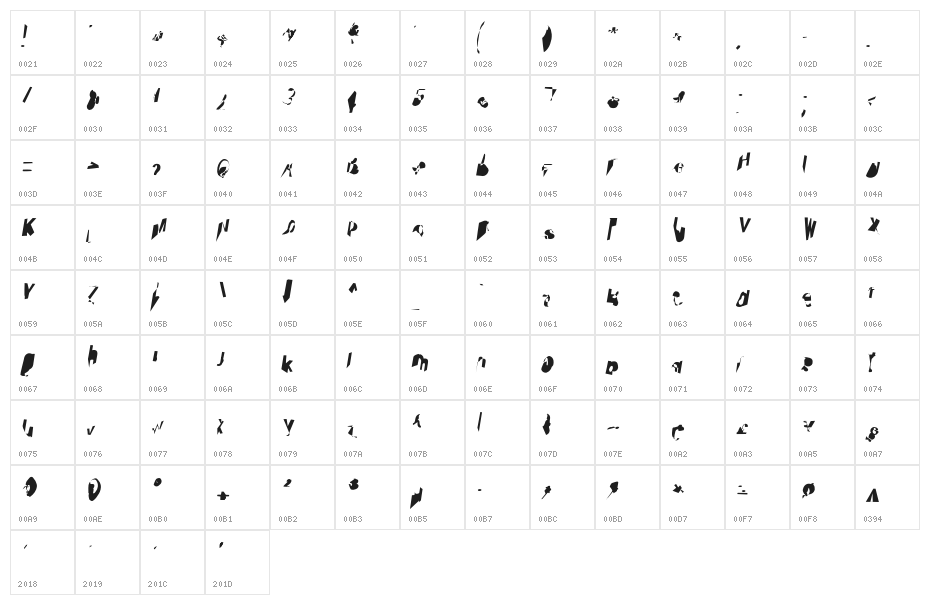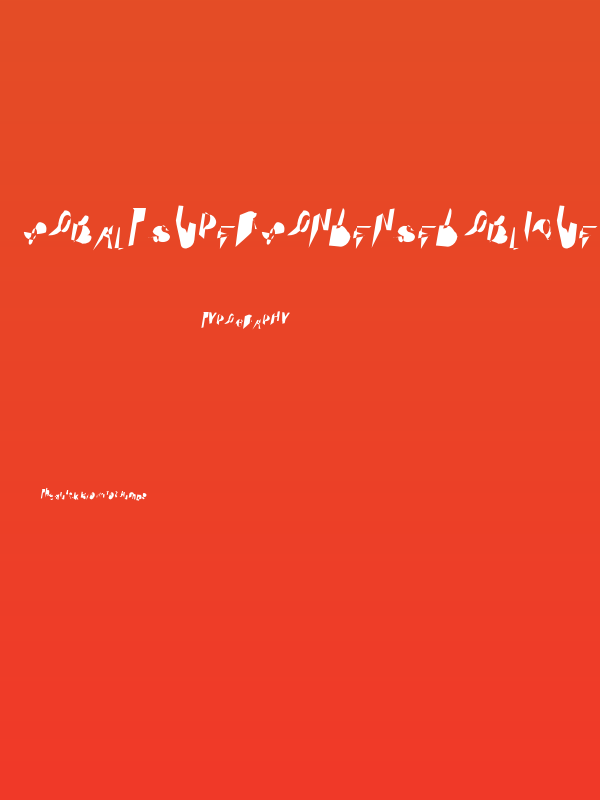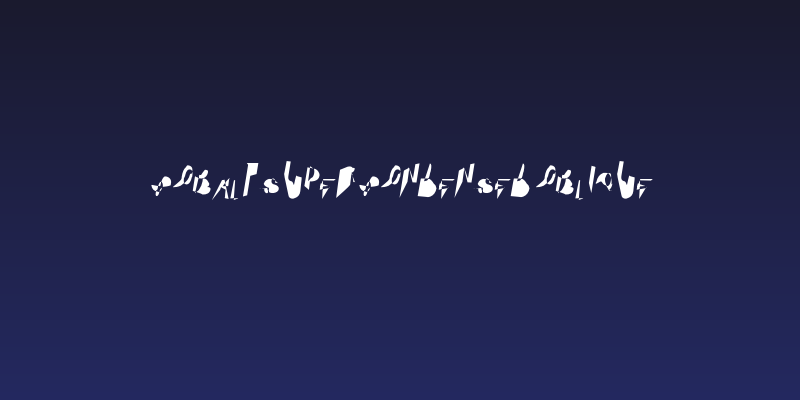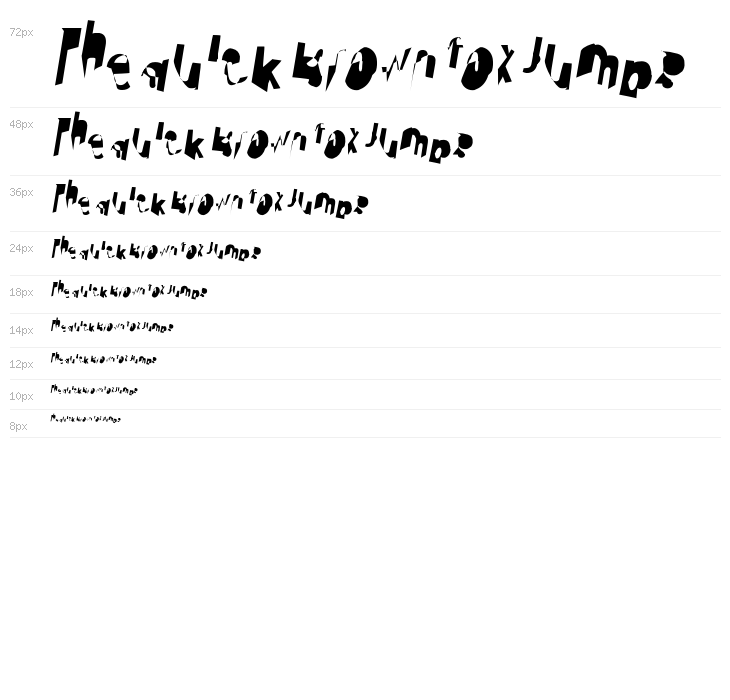
Cobalt SuperCondensed Oblique Font
Cobalt SuperCondensed Oblique Description
This font features a highly stylized and abstract design, characterized by its fragmented and angular letterforms. Each character appears to be constructed from sharp, geometric shapes, giving it a dynamic and edgy appearance. The oblique nature of the font adds a sense of movement and urgency, while the super condensed width makes it suitable for tight spaces. The font's unique style is both modern and artistic, making it stand out in any design. Its high contrast between thick and thin strokes further enhances its bold and striking look.
| Proposed Projects | Ideal for avant-garde posters, edgy branding, album covers, and modern art installations. |